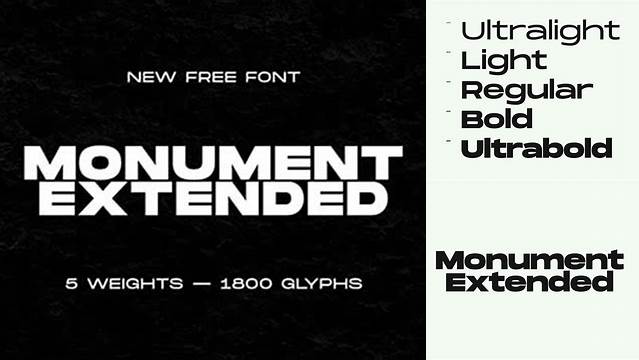
Are you looking to add a touch of modern elegance to your design projects? The Monument Extended font is a fantastic choice, known for its clean lines and impactful presence. In this comprehensive guide, we'll dive into everything you need to know about this popular typeface, including where to find it for free download and how to use it effectively in your designs.
What is Monument Extended Font?
Let's start with the basics. Monument Extended is a geometric sans-serif font designed by Milena Sesic and published by Milieu Grotesque. It's characterized by its bold, extended letterforms, which give it a strong and contemporary feel. This font is particularly well-suited for headlines, logos, and branding materials where you want to make a statement. The font’s strong visual presence makes it an excellent choice for projects that require a modern and assertive aesthetic.
Key Features of Monument Extended
- Bold and Extended: The font's most defining feature is its extended width, which creates a powerful visual impact. This makes it perfect for headlines and titles.
- Geometric Design: The clean, geometric shapes lend a modern and minimalist aesthetic to any design.
- Versatile Use: While it excels in headlines, Monument Extended can also be used in shorter blocks of text, adding a touch of sophistication.
- Multiple Weights: The font family typically includes various weights, allowing for flexibility in your design projects. Having different weights available means you can use the font in various contexts, from bold headings to lighter body text.
- Modern Aesthetic: Its contemporary style makes it a favorite among designers looking to create a sleek and stylish look. The font’s modern aesthetic ensures it remains relevant and visually appealing in a wide range of design applications.
The versatility of Monument Extended makes it a favorite among designers. It’s not just about the visual appeal; it’s about how the font can transform a design, adding a layer of sophistication and modernity. Whether you’re working on a website, a poster, or a brand identity, Monument Extended can bring a unique and polished look to your project. Its clean lines and geometric shapes make it incredibly readable, even in its bolder weights. This readability is crucial for ensuring your message is conveyed effectively, regardless of the design medium.
Why Use Monument Extended in Your Designs?
So, why should you consider using Monument Extended in your projects? Here are a few compelling reasons:
- Impactful Headlines: Its bold nature makes it ideal for grabbing attention. Headlines set in Monument Extended are sure to stand out, drawing the reader in and making a strong first impression. This is crucial for any design that aims to capture attention quickly, such as posters, advertisements, and website headers.
- Modern Branding: The font exudes a contemporary feel, perfect for brands aiming for a sleek and modern image. In the realm of branding, consistency is key, and using Monument Extended can help establish a cohesive and recognizable visual identity. This can significantly enhance brand recognition and recall.
- Readability: Despite its extended form, the font remains surprisingly readable, even in smaller sizes. This readability makes it suitable for a variety of applications, from print to digital media. Ensuring your text is easily readable is paramount in effective communication, and Monument Extended strikes a balance between style and function.
- Versatility: It works well in a variety of design contexts, from web design to print materials. This versatility makes it a valuable asset in any designer’s toolkit. Being able to use a single font across multiple platforms and mediums ensures a consistent visual experience for your audience.
- Professional Look: Using Monument Extended can instantly elevate the professionalism of your designs. This is particularly important for projects where credibility and trustworthiness are essential. A well-chosen typeface can communicate professionalism and attention to detail, leaving a lasting positive impression.
The impact of a well-chosen font cannot be overstated, and Monument Extended is a prime example of a typeface that can transform a design. Its ability to convey modernity, strength, and sophistication makes it a go-to choice for designers across various industries. Whether you're designing a cutting-edge website, a sleek marketing campaign, or a professional corporate identity, Monument Extended can help you achieve a polished and impactful result. Moreover, the font’s aesthetic appeal is not just about looks; it's about creating an emotional connection with the audience. A font that resonates with your target demographic can significantly enhance the effectiveness of your message and brand identity.
In conclusion, Monument Extended is a fantastic font for adding a modern and impactful touch to your designs. While finding a free version may require some digging, the alternatives mentioned above offer similar aesthetics and are readily available. By understanding how to use Monument Extended effectively, you can elevate your projects and create visually compelling designs. So go ahead, experiment with this typeface and see how it can transform your work!